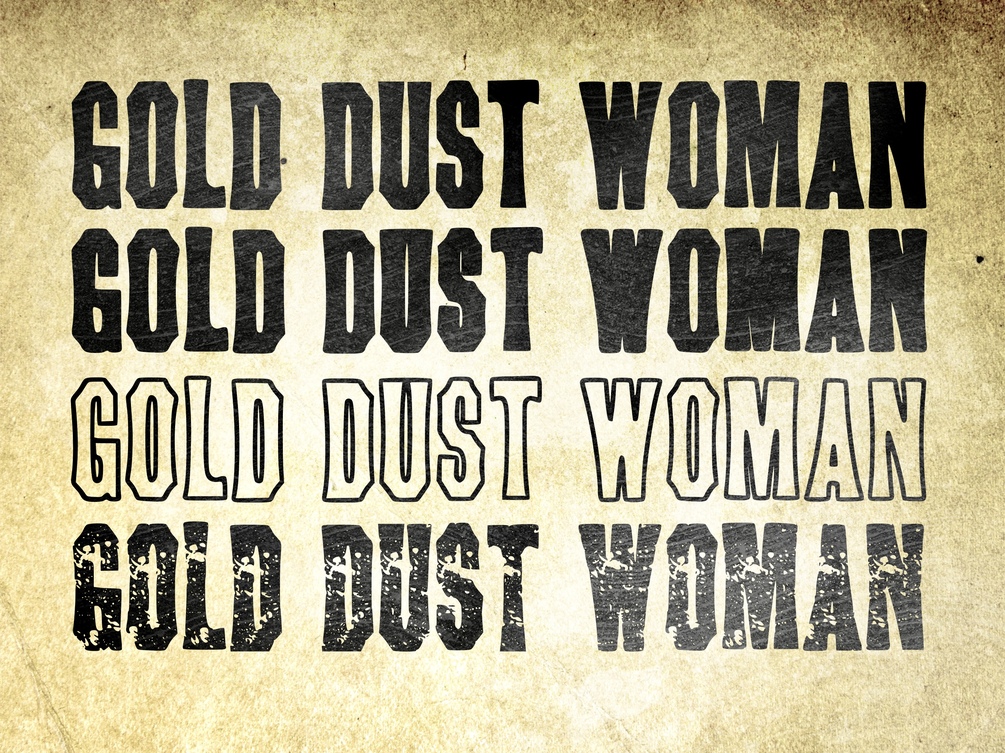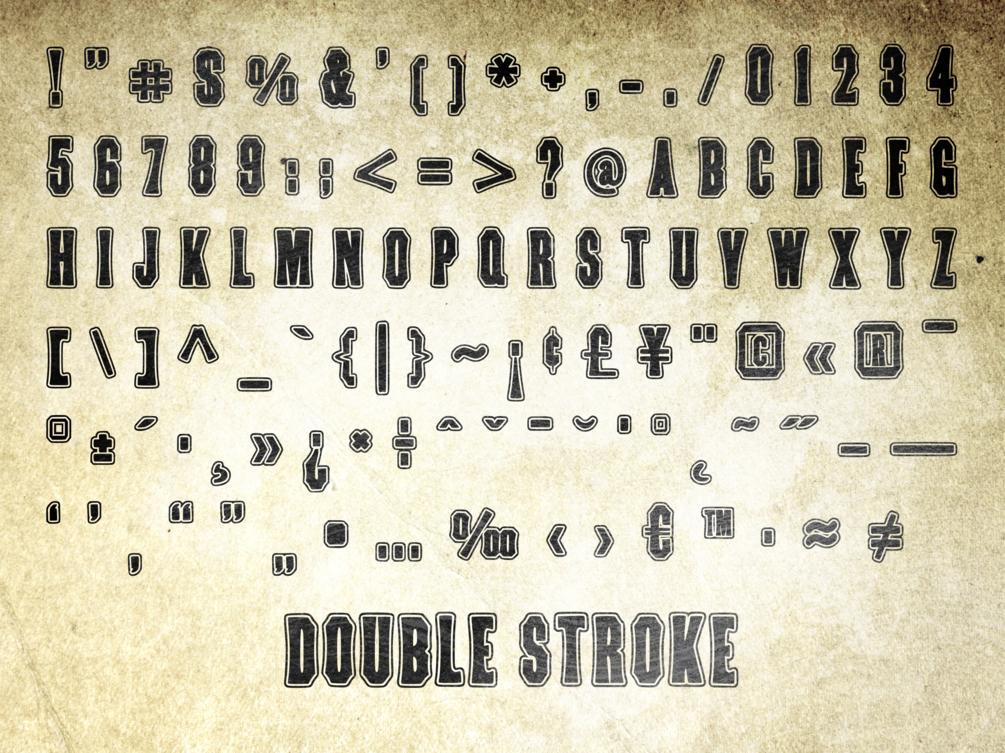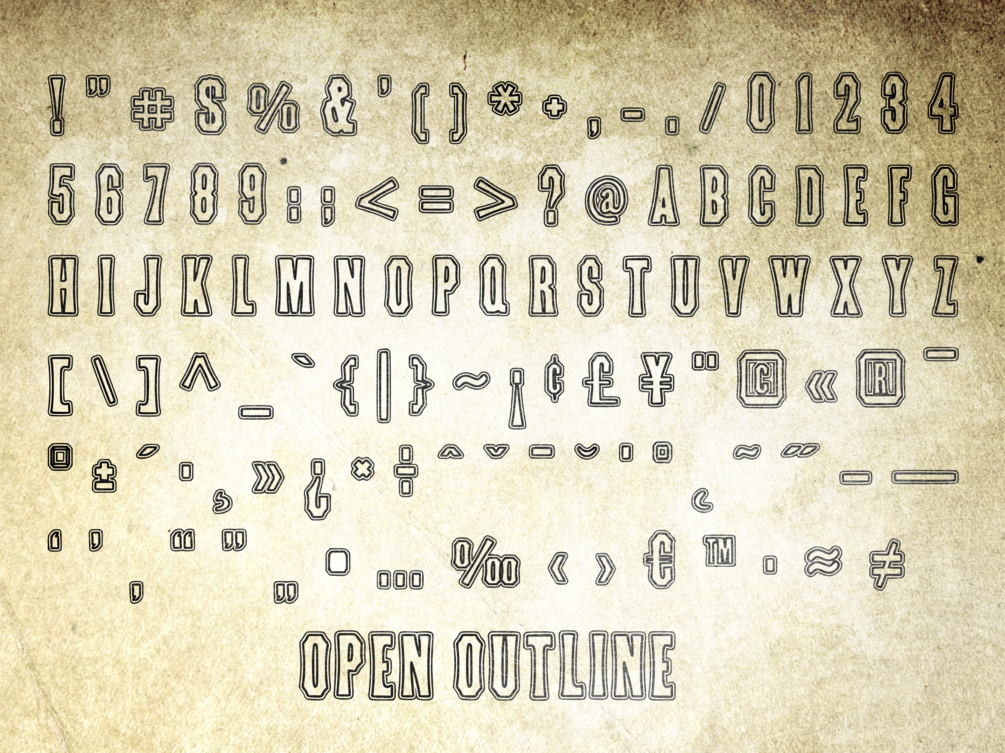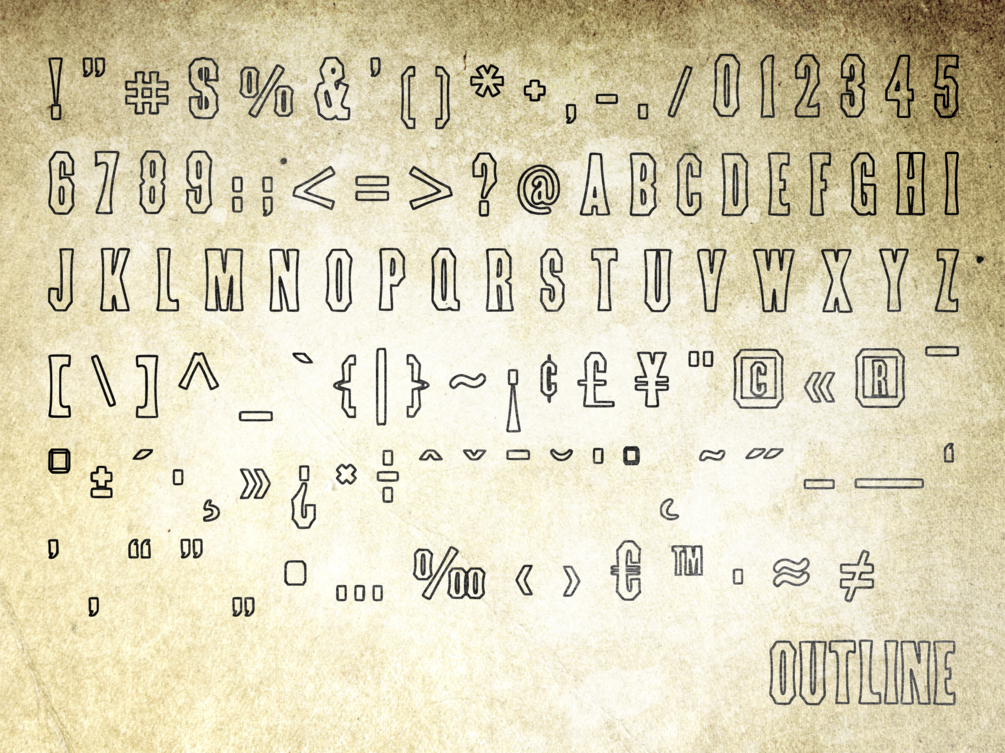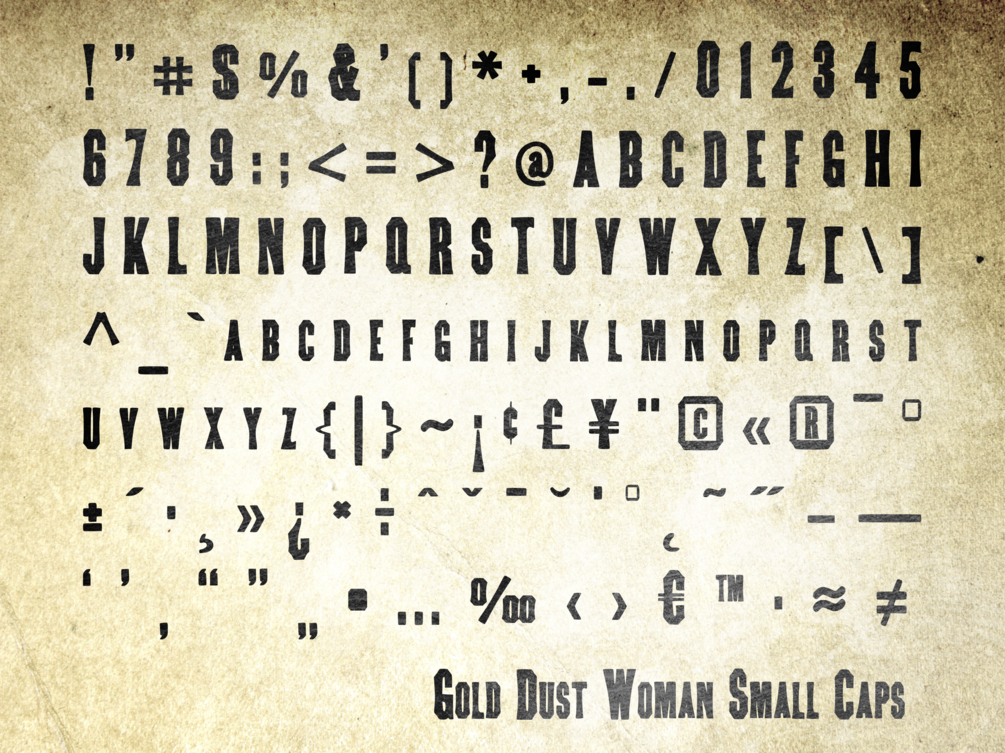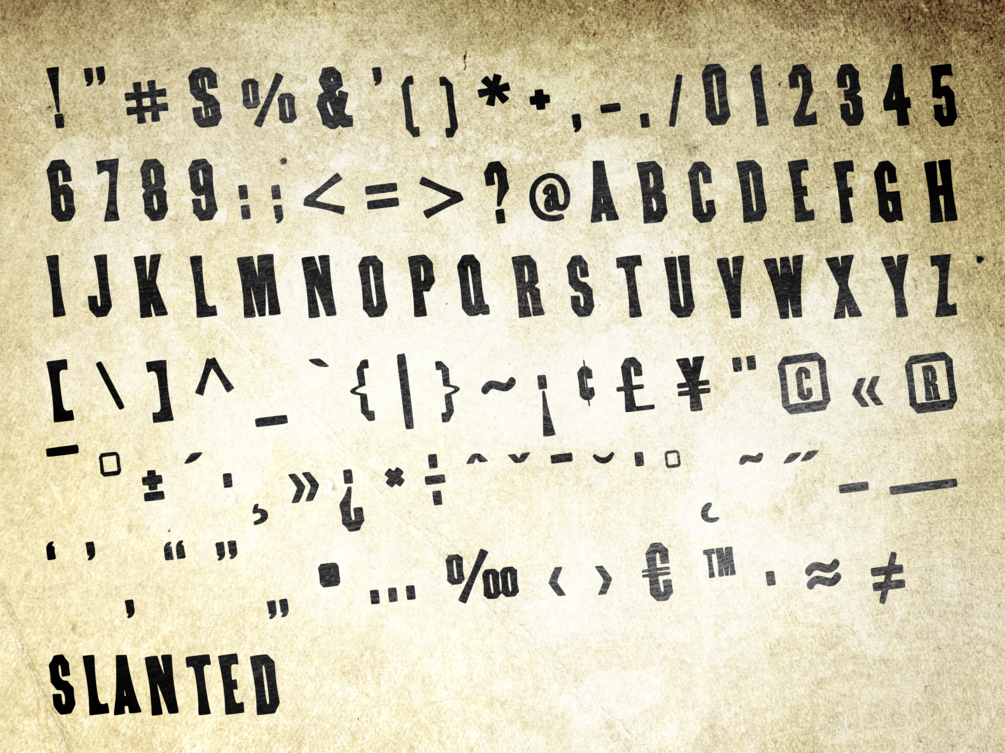
Gold Dust Woman
Gold Dust Woman is a bold, groovy and vintage styled display font. This font is imposing and features uniquely shaped letters, and as a result, it will easily match a wide range of creations that require a distinct touch. Made up of 8 typefaces featuring a regular, bold, rough, outline, small caps, slanted, open outline, and double stroke version.
Gold Dust Font Family